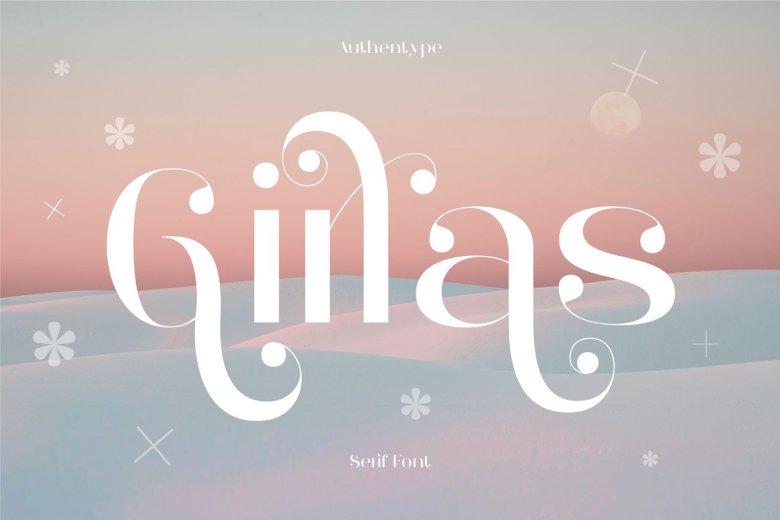
Girlas Font
The Girlas is a nice high contrast font. It is good for beauty product branding because girlas contains a variety of characters and ligatures that are very feminine and pretty.
Girlas Serif Font